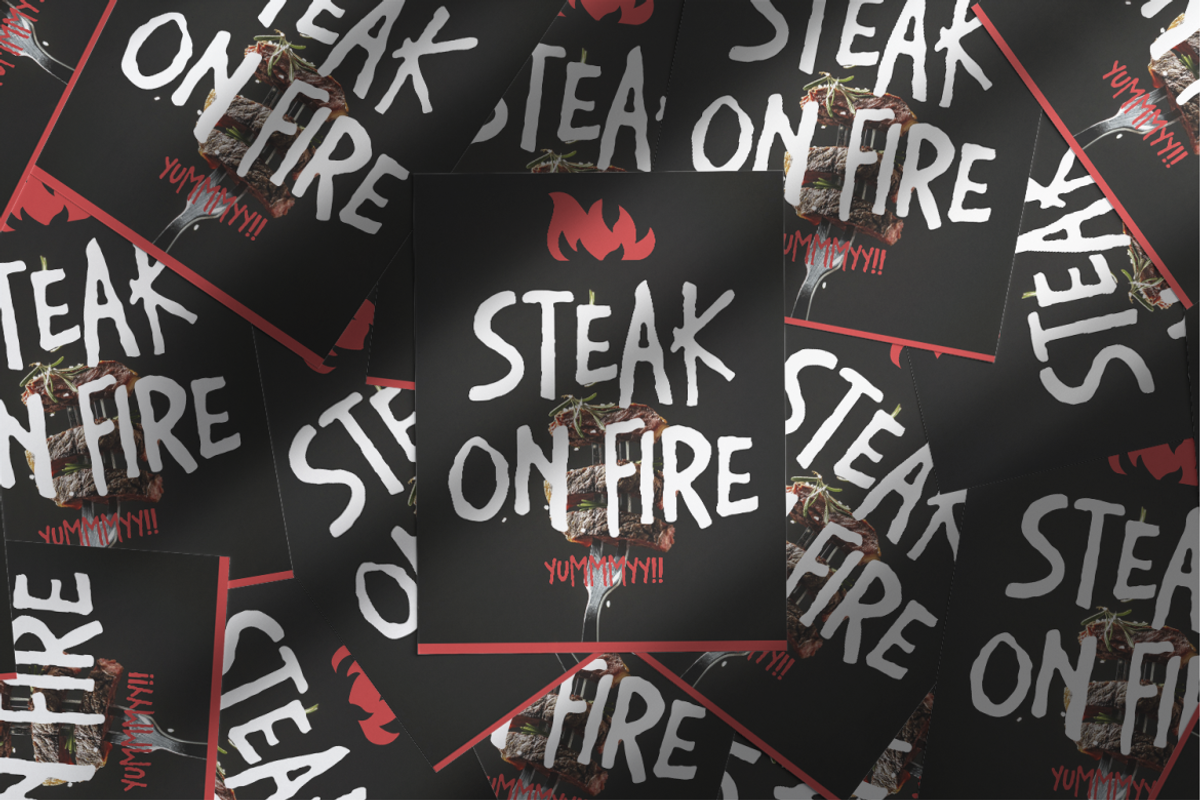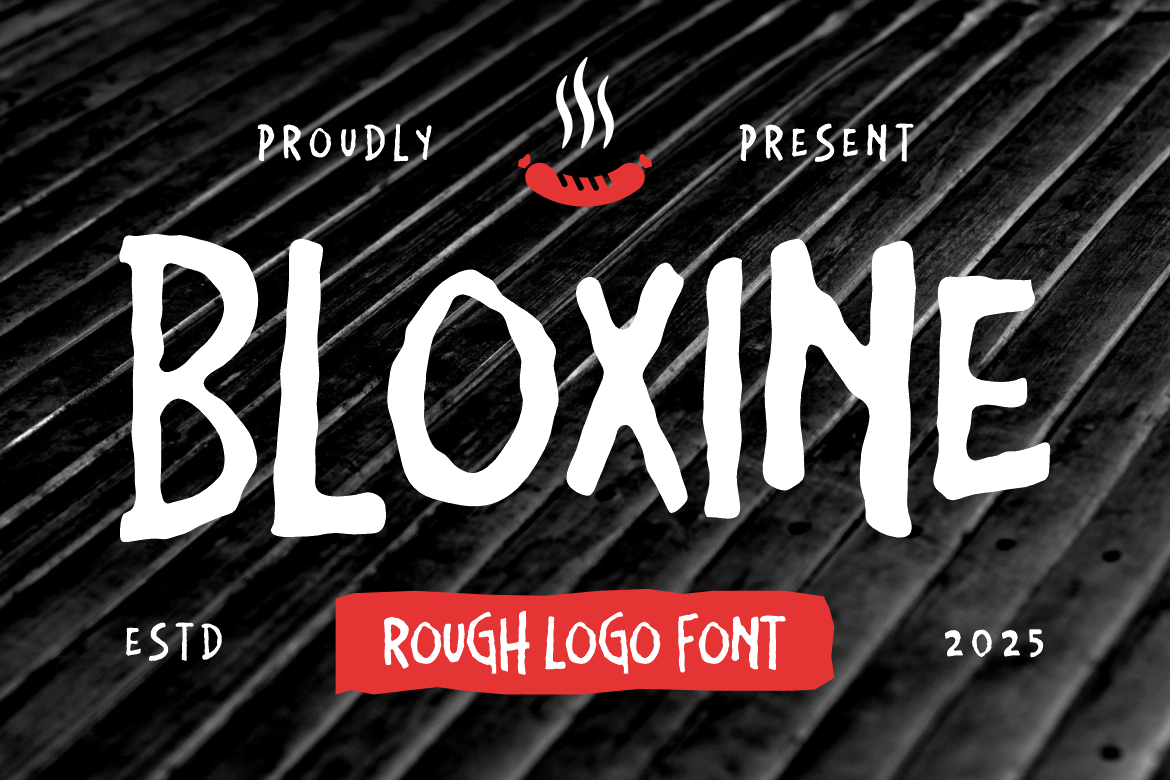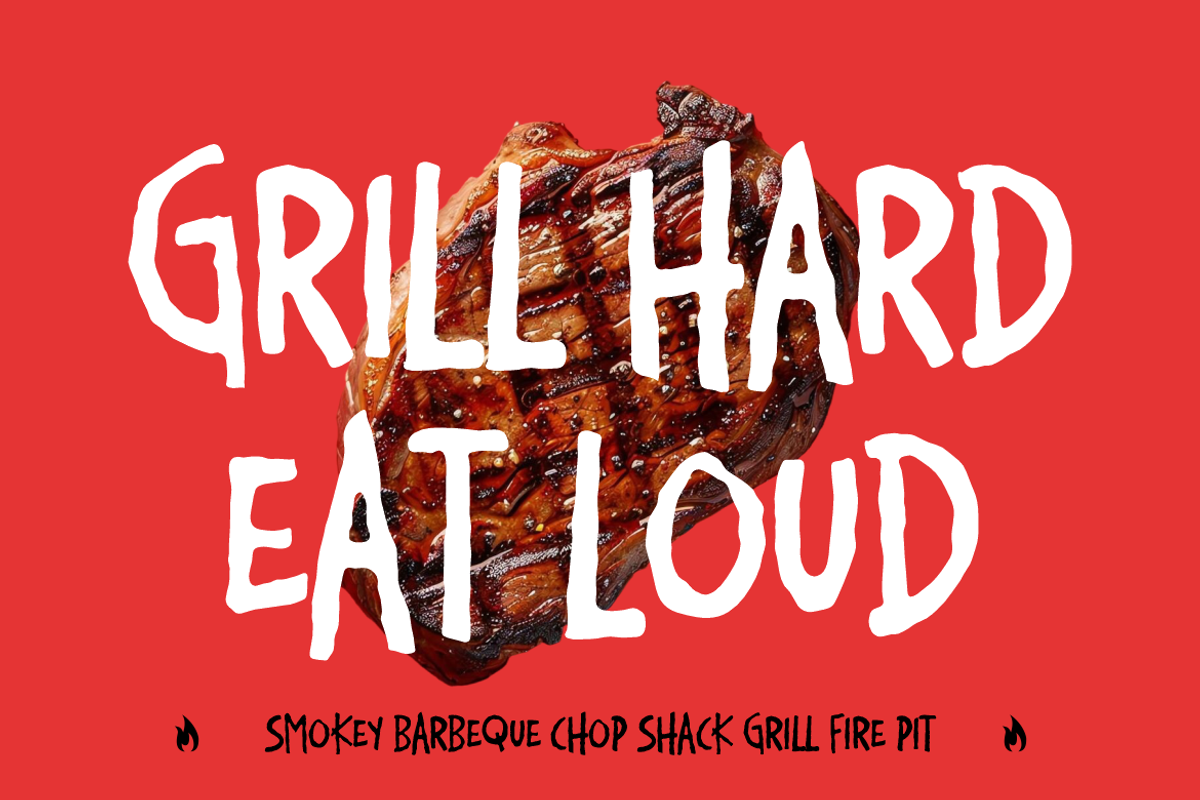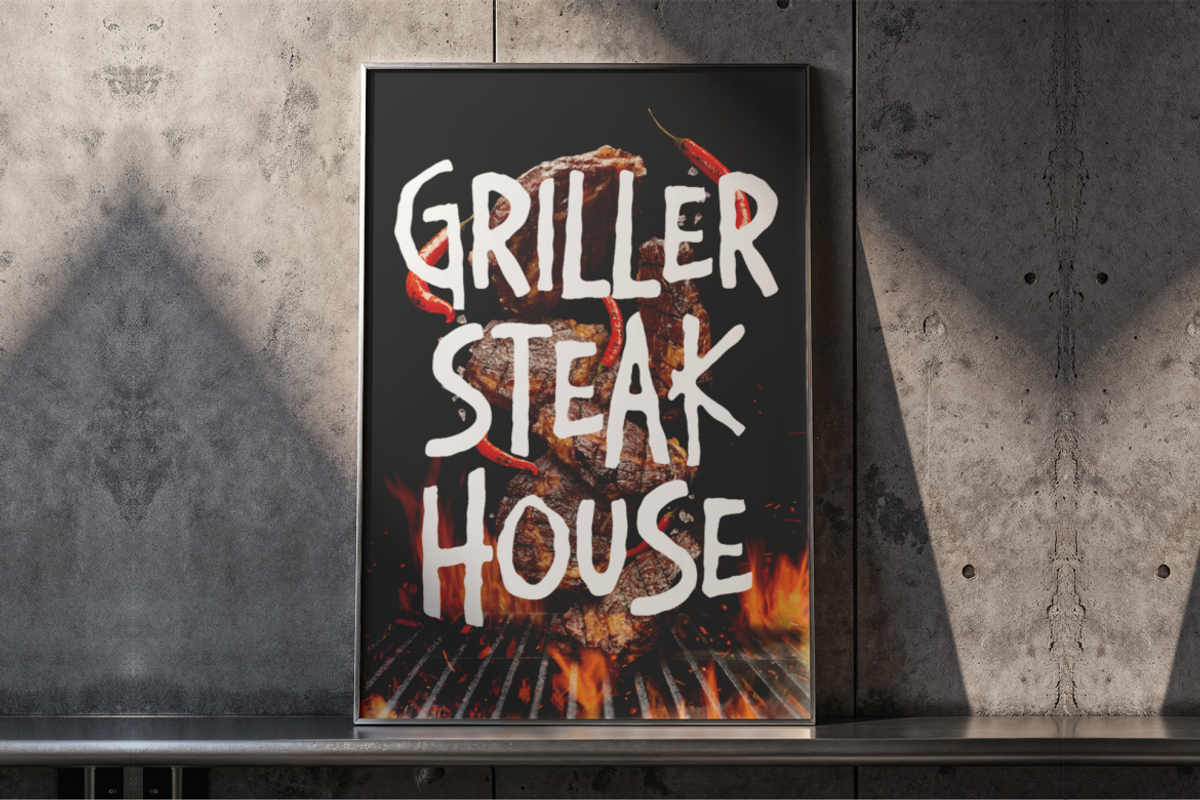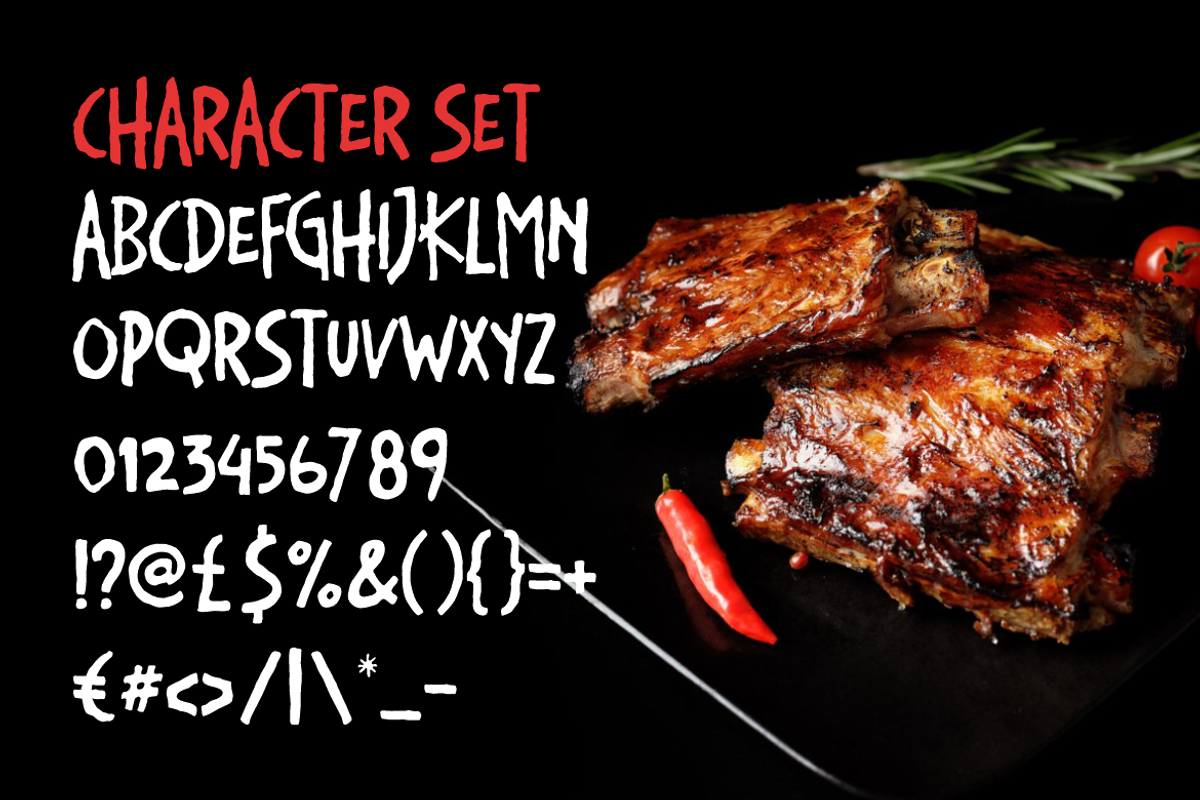
Bloxine Rough Logo Font
Bloxine Rough Logo Font brings a handcrafted energy to every design with its textured, imperfect strokes. Each letter feels organic, echoing the rough lines of hand-painted signage while keeping a strong and bold form. This makes the font ideal for food branding, grill house promotions, or any project needing a rustic yet impactful look. Its raw details reflect the smoky, sizzling atmosphere of barbecues, creating a warm connection between design and flavor. The uneven edges and natural flow offer an authentic handmade personality, giving your visuals a unique and memorable identity.
Designed for versatility, Bloxine Rough Logo Font works across various mediums, from posters and packaging to bold headlines and restaurant logos. It captures attention instantly, whether used for steakhouse branding, street food advertising, or event flyers. The font pairs rough aesthetics with clear readability, making it practical for both digital and print projects. With its bold strokes and crafted texture, it brings personality to every composition without losing clarity. If you’re seeking a font that merges rugged character with usability, Bloxine Rough Logo Font is the perfect choice.